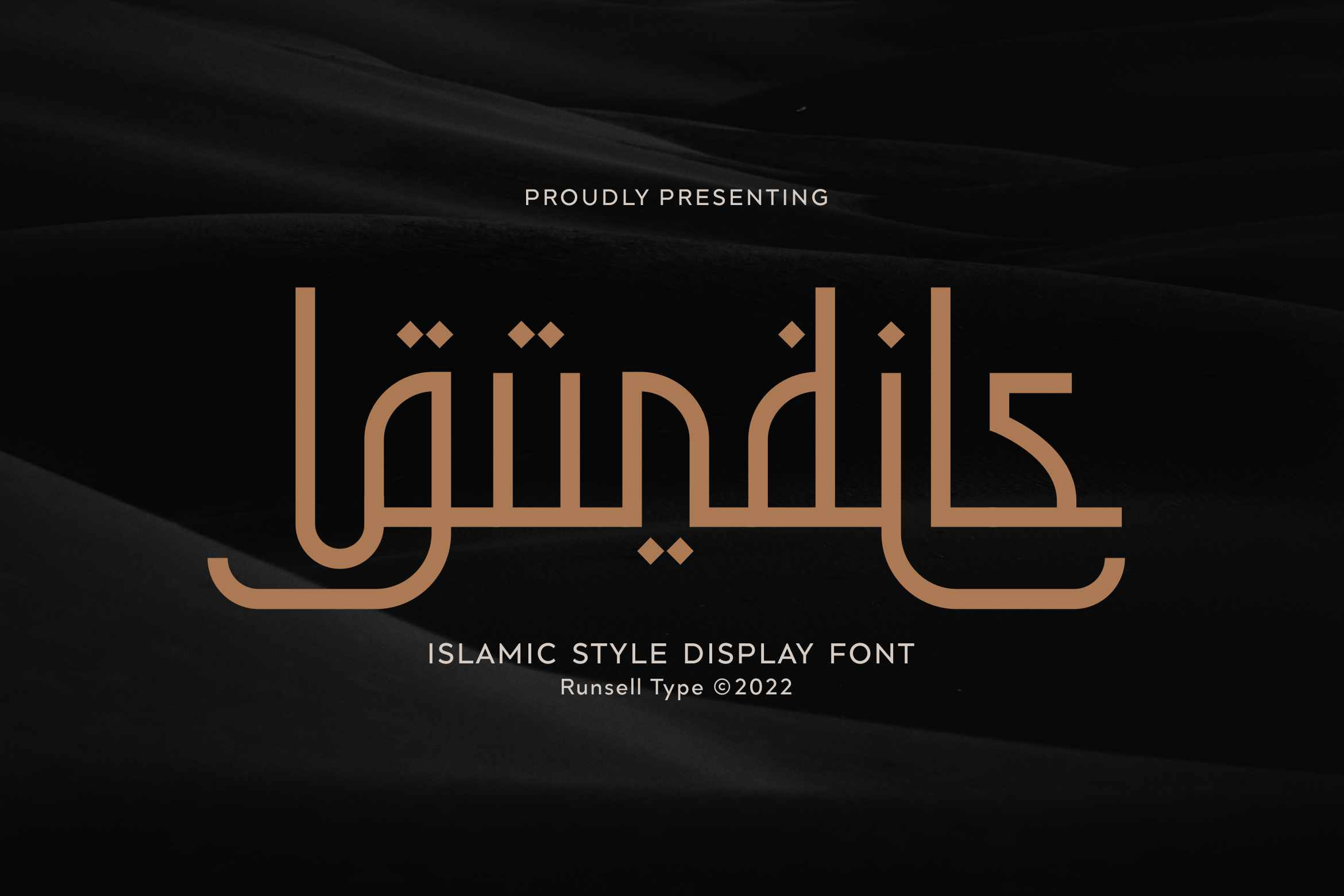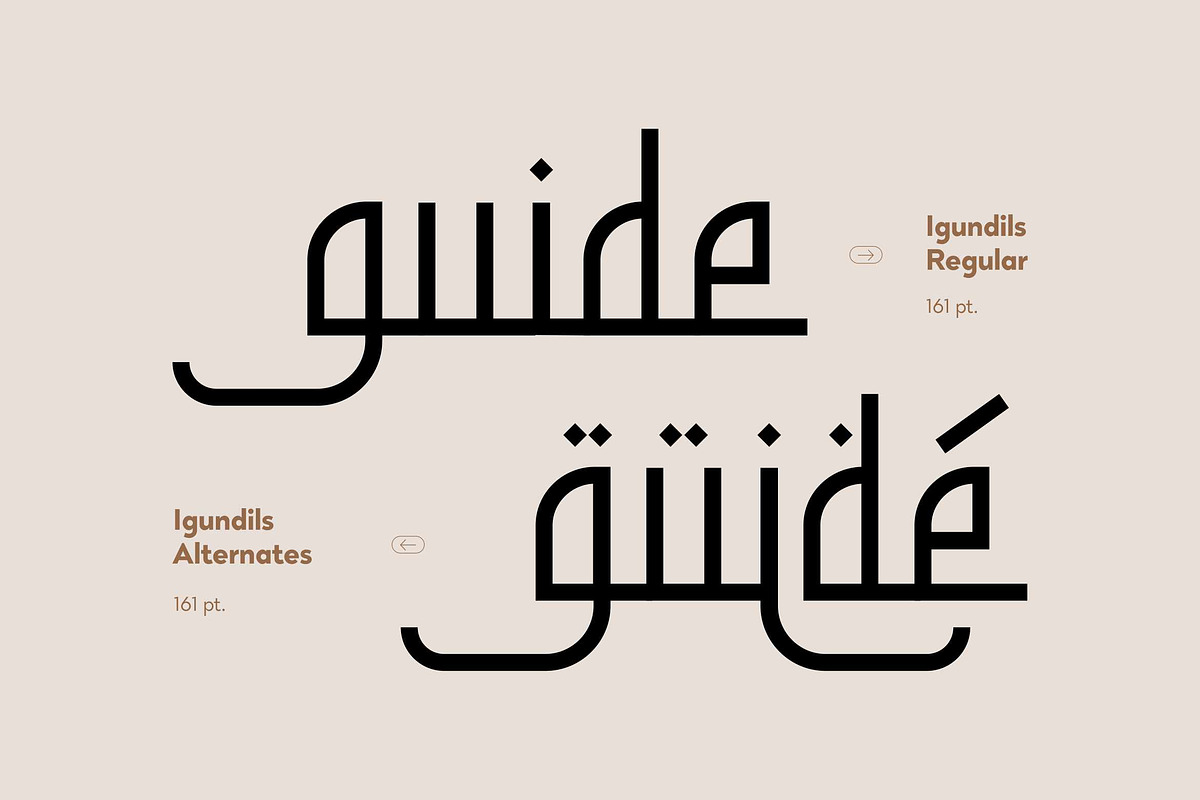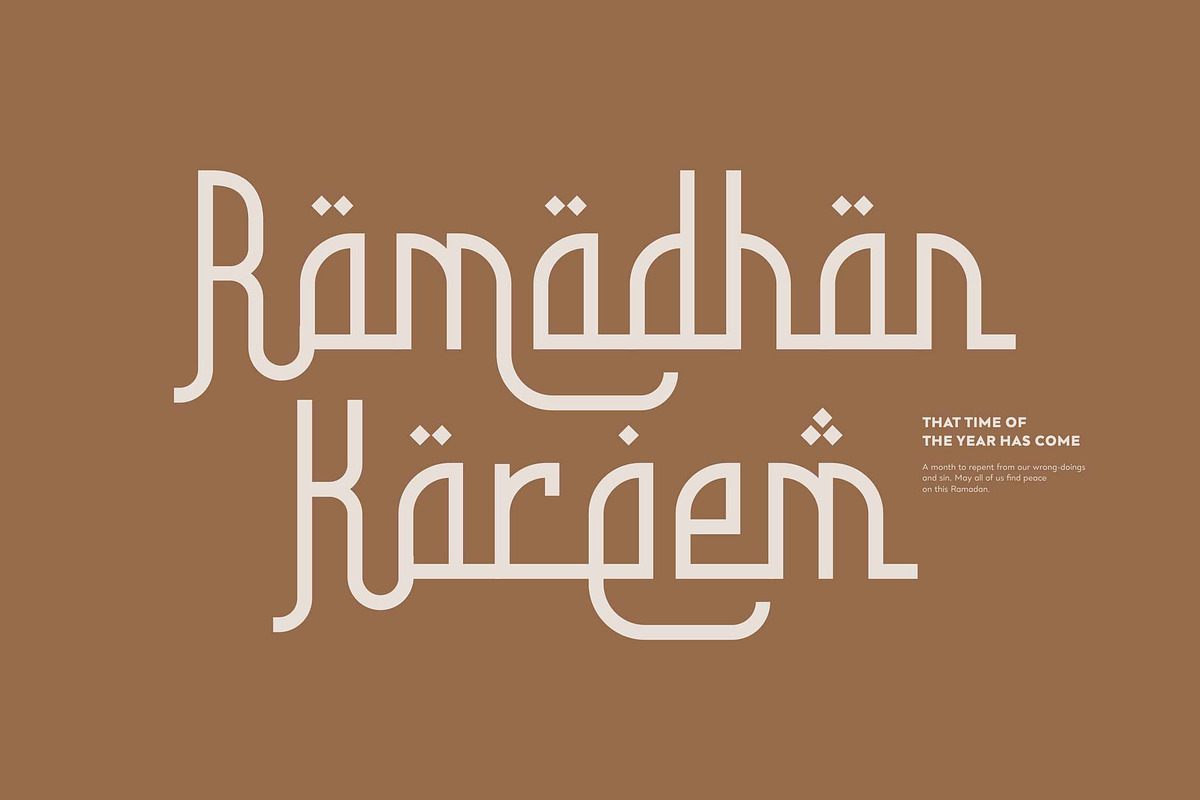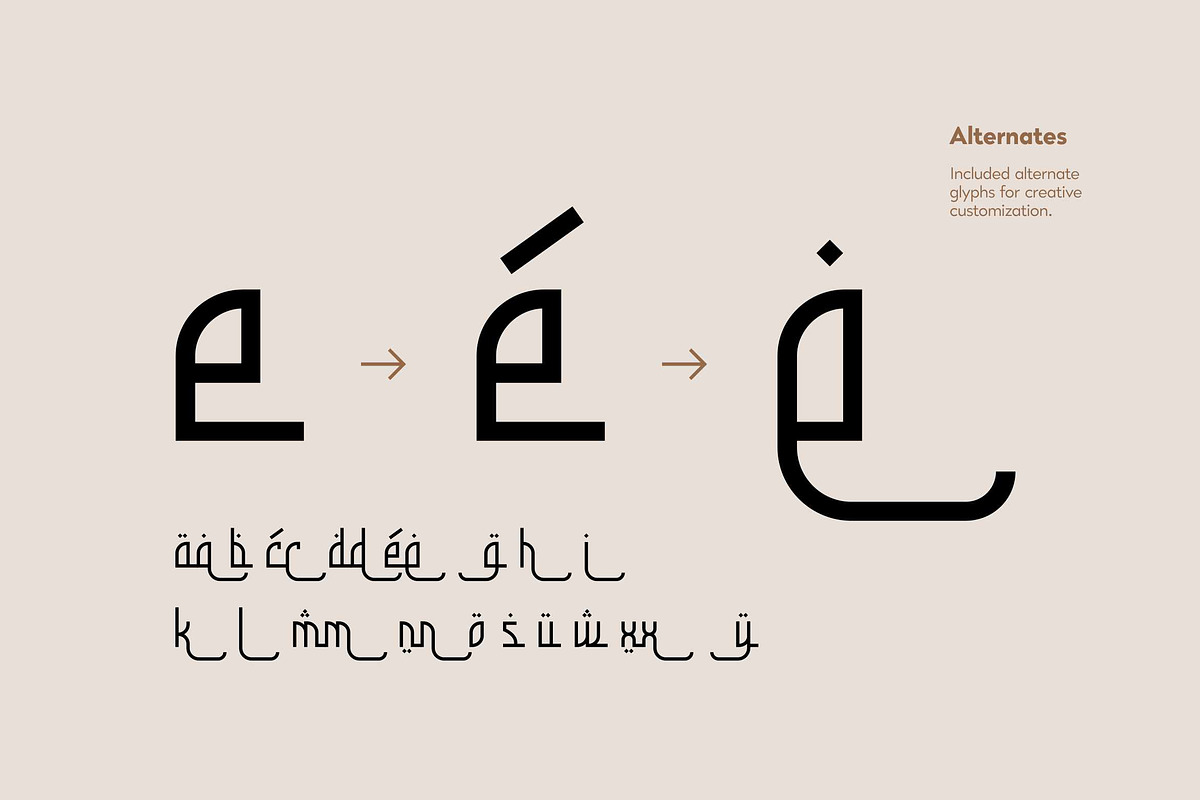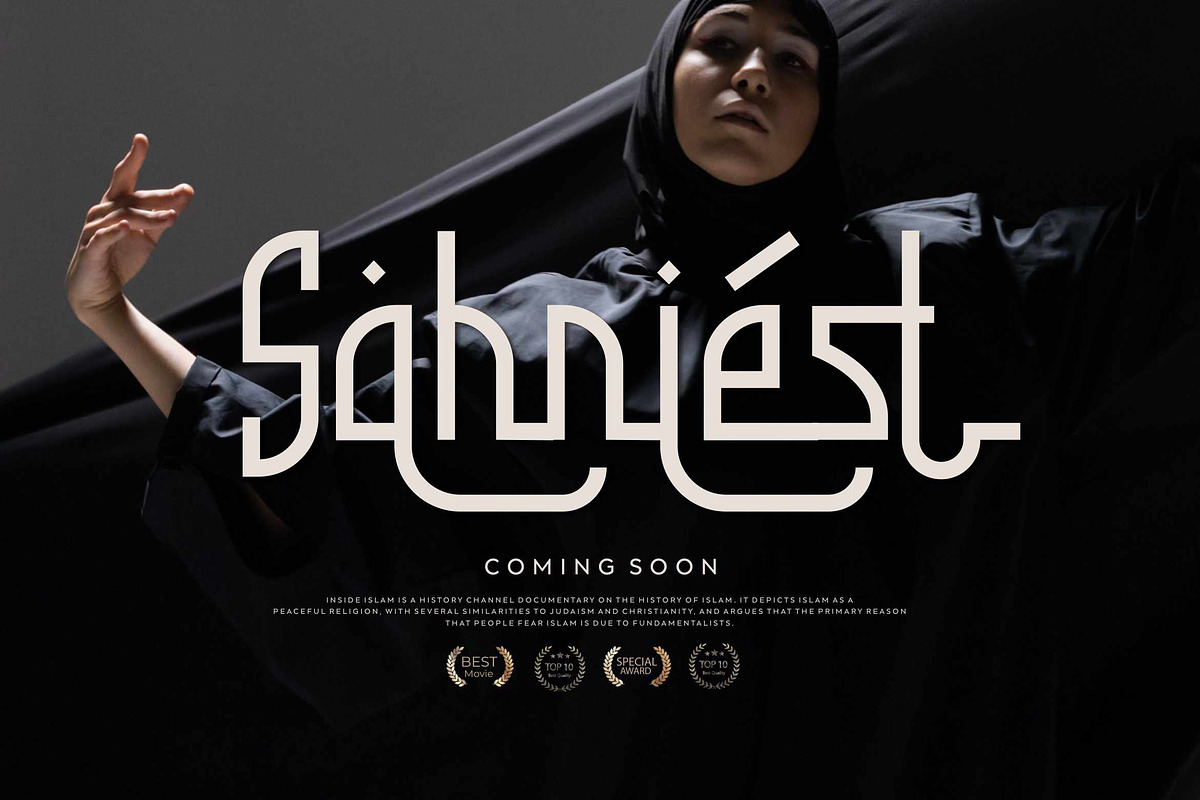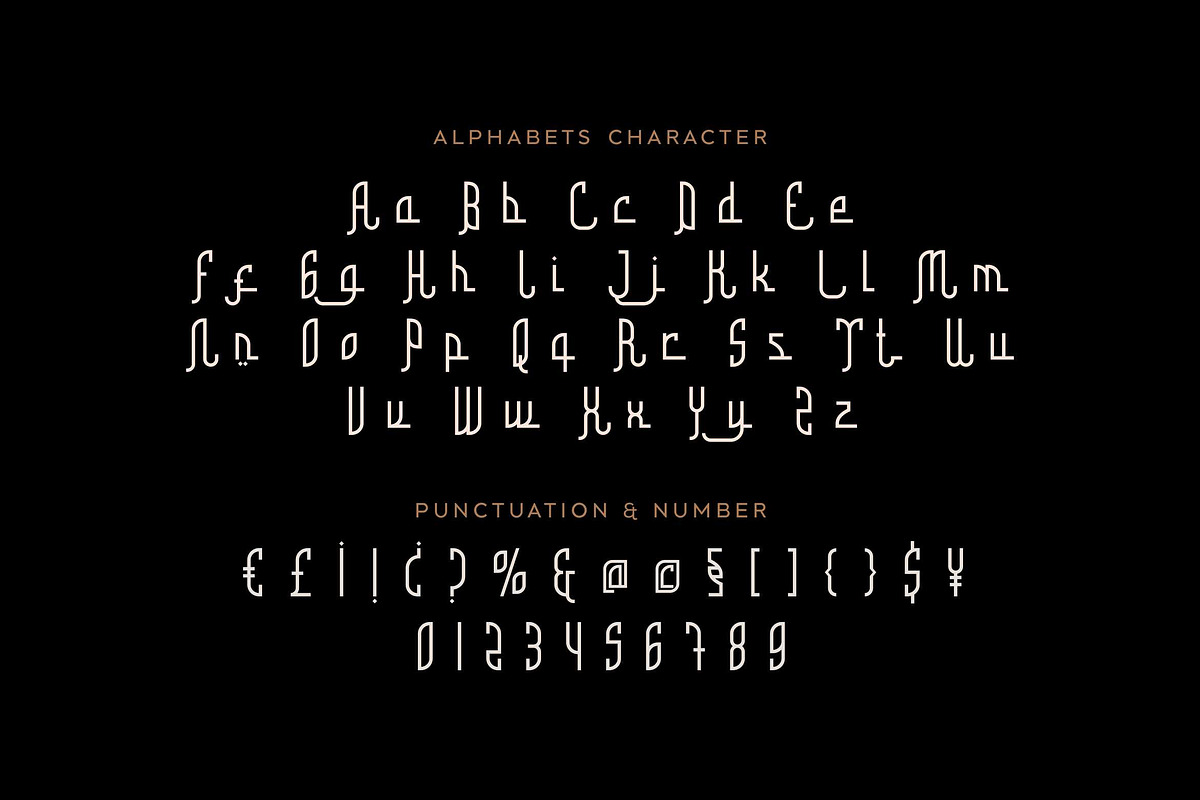
Igundils - Modern Arabic Font
Igundils - Modern Arabic Font is perfect for many of your projects like logos & branding, photography, invitations, watermarks, advertisements, product designs, stationery, wedding designs, labels, product packaging, special events and much more.